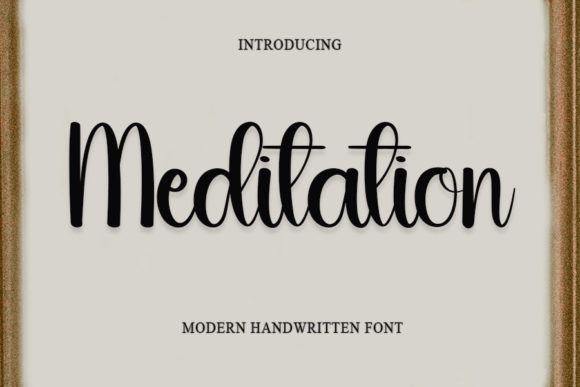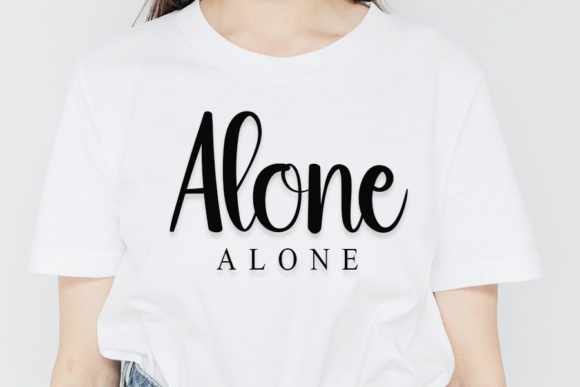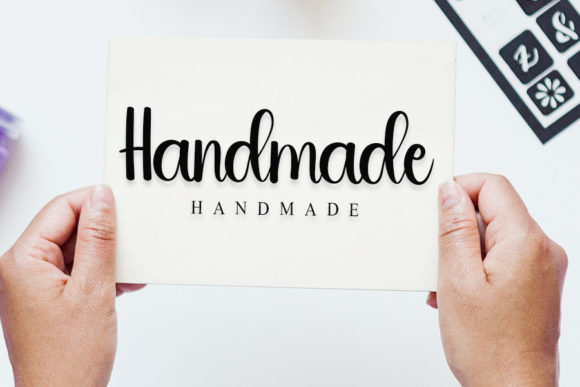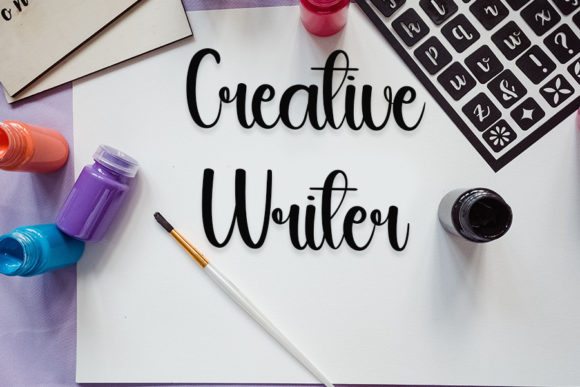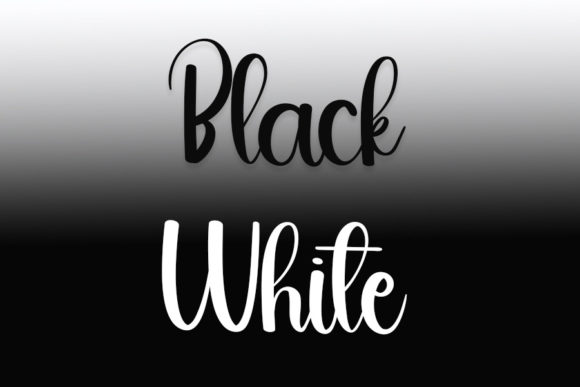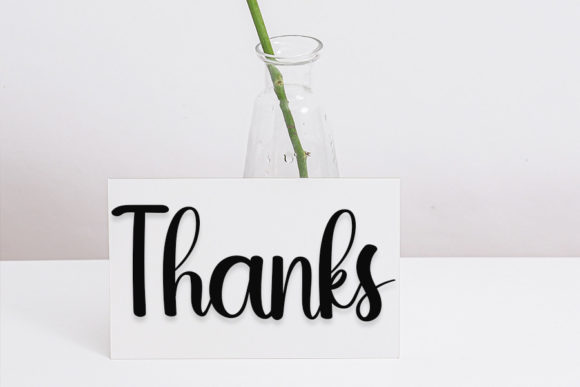
Meditation Font
About Meditation Font
Meditation is a captivating and stylish handwritten font that seamlessly fuses contemporary flair with the timeless grace of classic calligraphy. Its impeccable form and balanced design make it an exceptional choice for elevating the beauty of your diverse range of creative projects.
Drawing inspiration from the artistry of traditional calligraphy, Meditation presents a modern twist that reflects a current and sophisticated aesthetic. The meticulously crafted letterforms, characterized by fluid strokes and harmonious curves, exude an air of elegance and innovation. This balance between classic and modern elements is what sets Meditation apart and makes it a versatile typeface for a multitude of design endeavors.
Meditation’s distinctive style ensures its adaptability across a wide spectrum of applications. Whether it’s branding and logos, web design, social media graphics, or packaging, the font seamlessly integrates into various contexts, enhancing visual compositions with its refined yet contemporary appearance. Its versatility is a valuable asset for designers seeking to create captivating and impactful visuals.
The font’s effortless legibility, coupled with its striking aesthetics, makes it well-suited for projects that require a touch of sophistication and charm. Whether you’re designing wedding invitations, greeting cards, or other refined materials, Meditation adds a layer of allure and luxury, elevating the overall aesthetic of the design.
Meditation also shines in digital platforms, such as websites, apps, and digital marketing materials. Its contemporary yet timeless appeal ensures that your message is communicated effectively while leaving a lasting impression on your audience.
Incorporating Meditation into your projects allows you to harness a font that not only meets the demands of modern design but also infuses a sense of classic beauty. Its impeccable form and balanced design contribute to its ability to enhance the visual appeal of your creations, making Meditation a stellar choice for elevating your designs to new levels of elegance and sophistication.